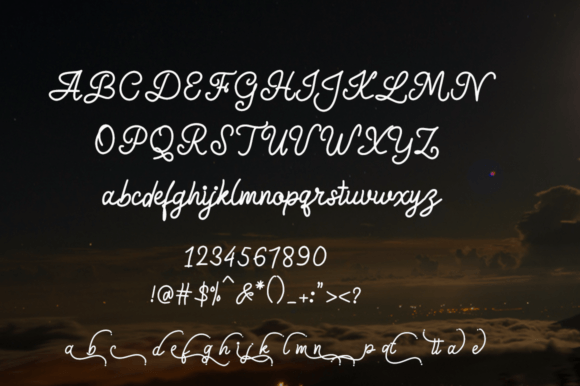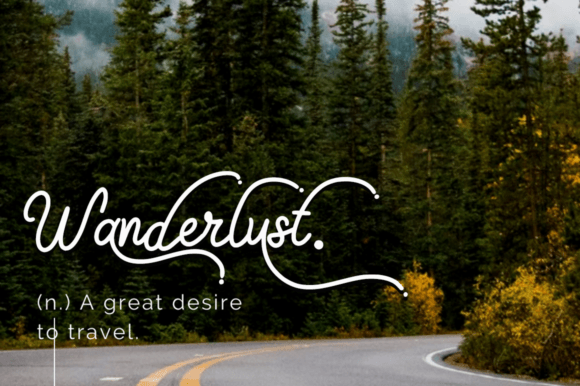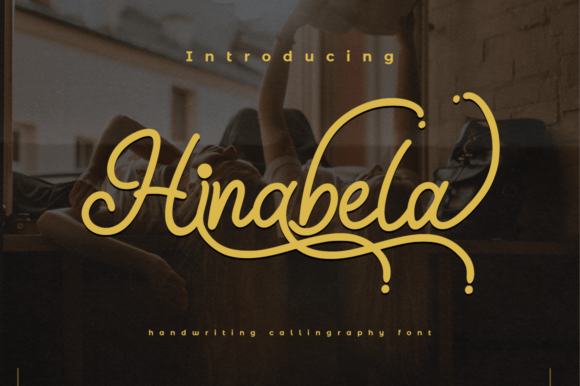
Hinabela Font
Hinabela Font – a contemporary calligraphy font reflecting an enticing blend of casual yet elegant design. Steeped in a modern handwriting style, it features a stunning Regular variant that splendidly pairs the charm of casual with the beauty of swash. Unleashing endless possibilities, Hinabela Script is perfect for creating captivating logos, designing eye-catching product packaging, crafting awe-inspiring wedding invitations, carving out impressive branding, headlining bold signage, assembling neat label work, etching distinctive signatures, or dressing book covers. It’s also ideal for making your posters stand out, putting an exceptional twist to your quotes and numerous other applications. Hinabela Script – when you need a font to do more than just talk.